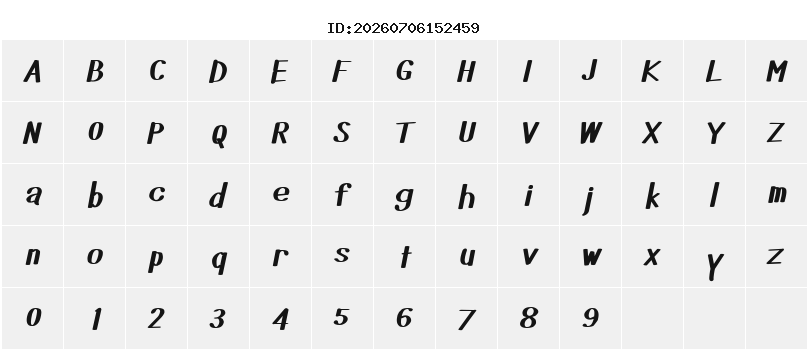
Did you see that Preview
• Font Name: Did you see that
• Full Font Name: Did you see that
About Did you see that.ttf
Did you see that.ttf is a modern, elegant sans-serif font designed for ultimate readability and visual harmony. Perfect for branding, headlines, web design, and print materials.